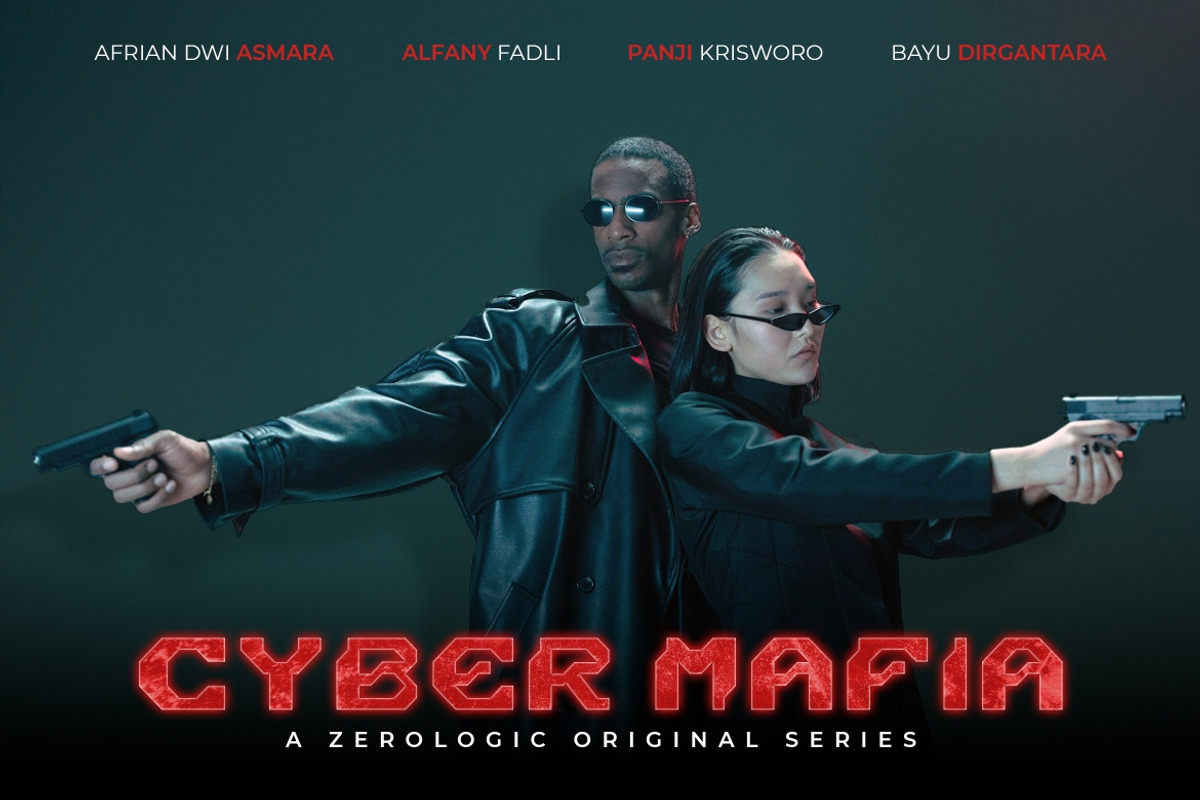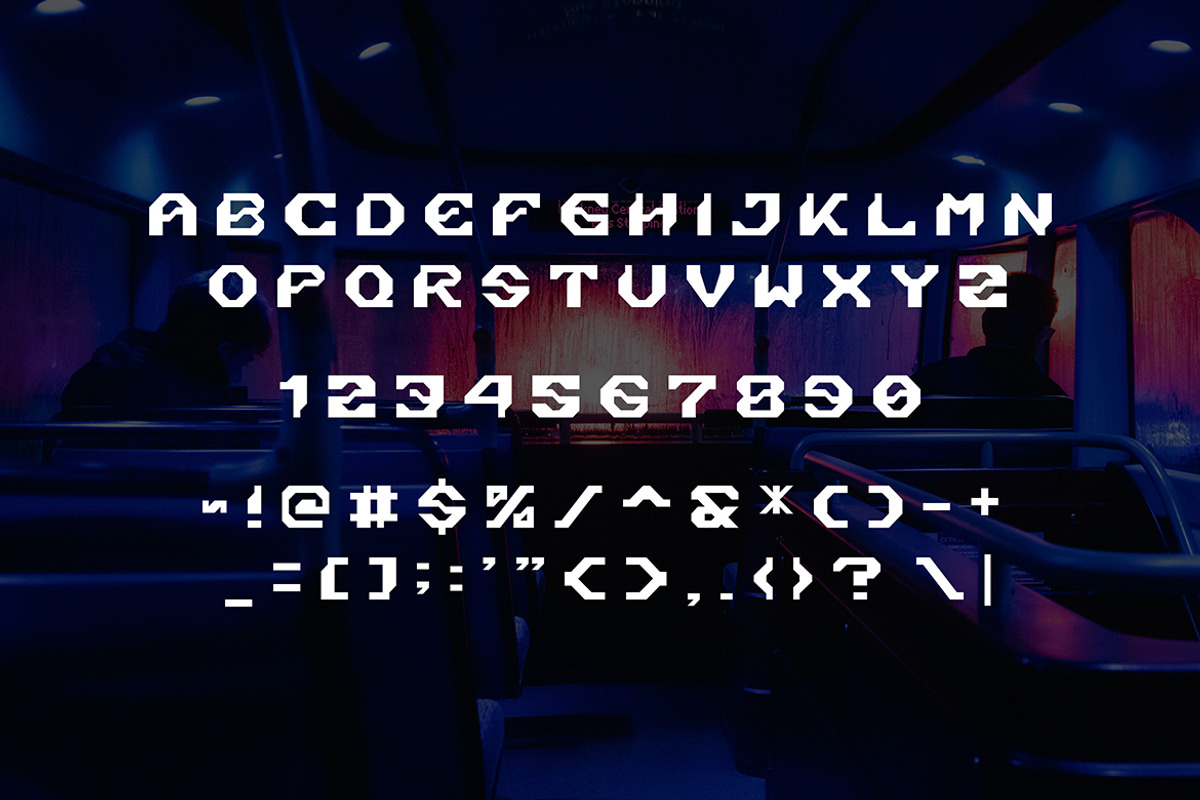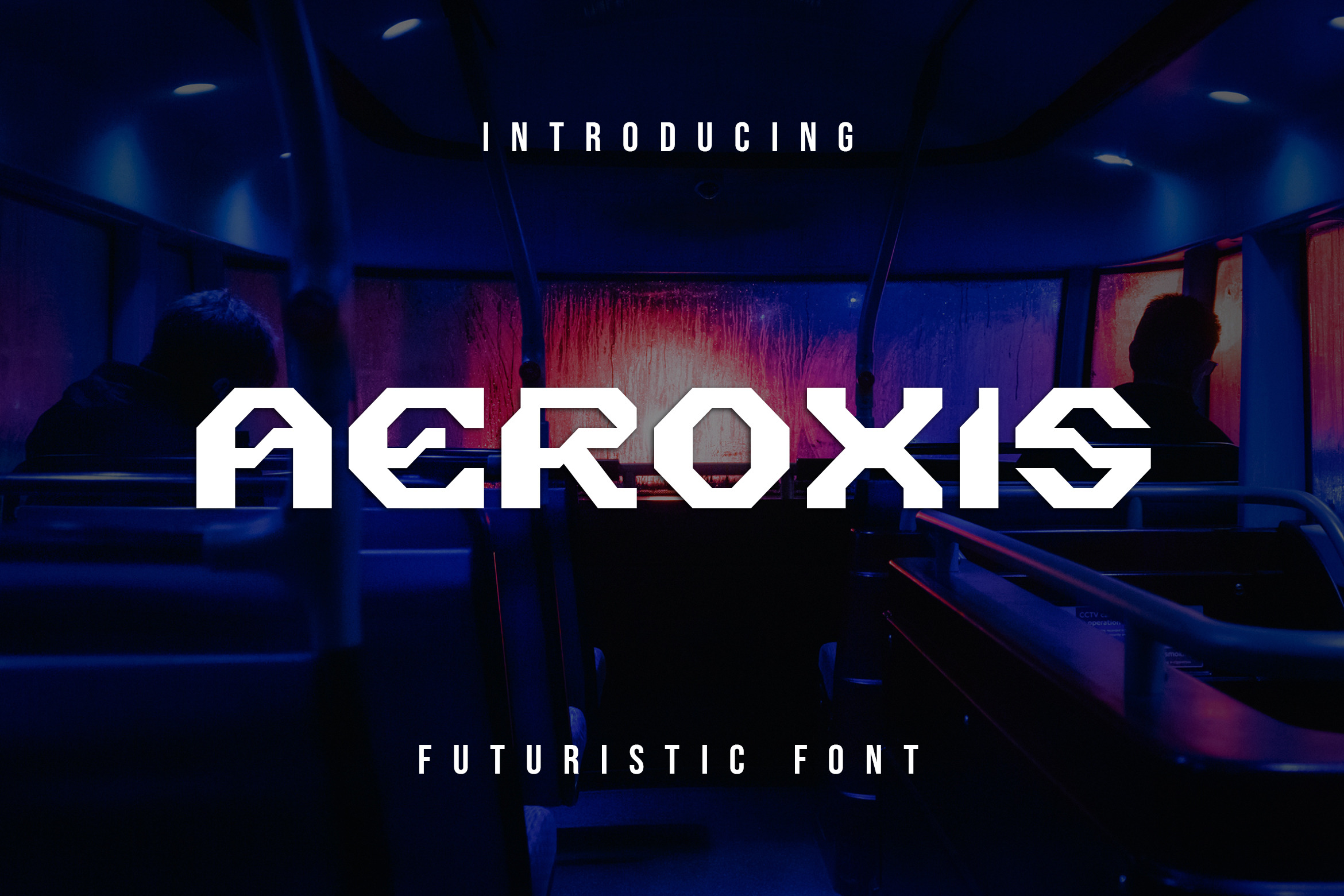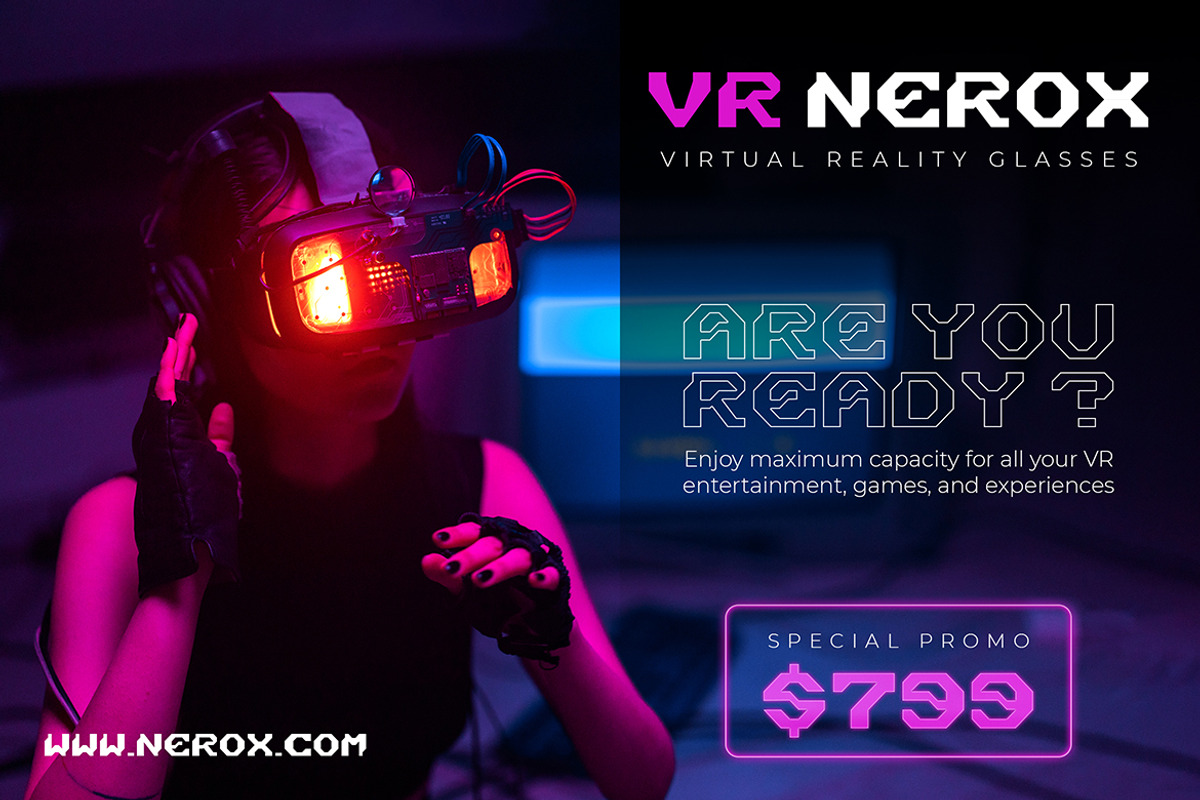
Aeroxis Futuristic Font
Aeroxis is a Futuristic font that we designed with original touch Bold style for your needs. This cool font is complete with Uppercase, Lowercase, Numeric & symbols. This very strong and sharp font is perfect for titles, typography, posters, magazines, brochures, packaging, Websites and much more for your design needs, making your designs more cool.